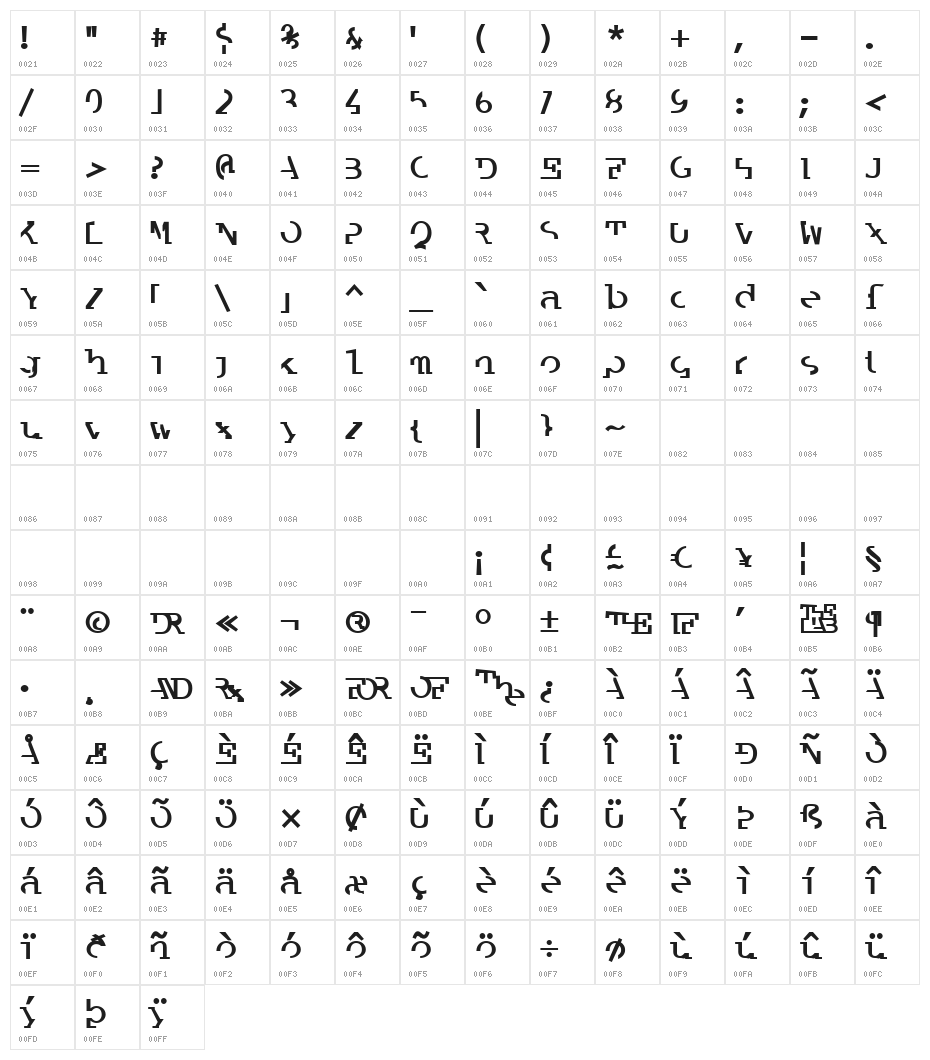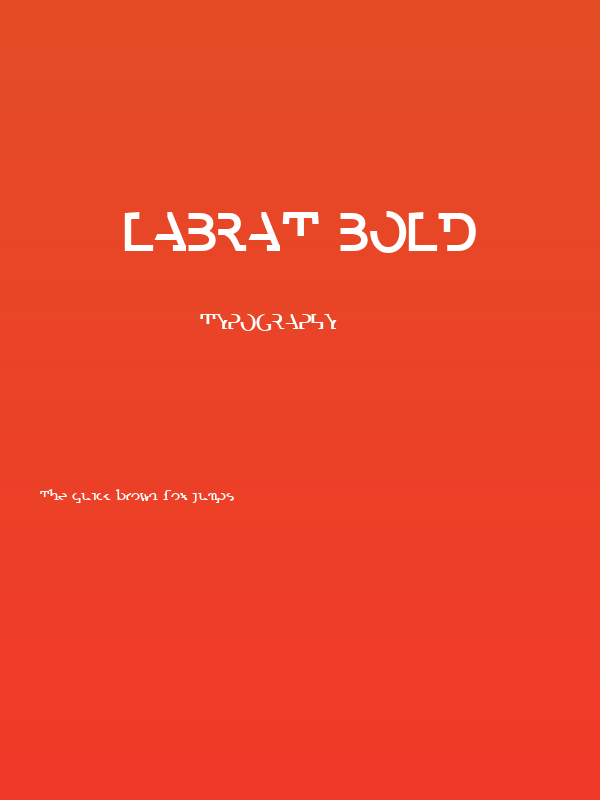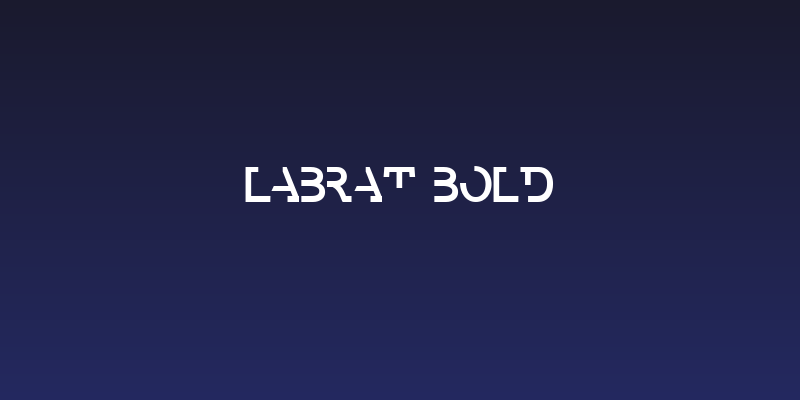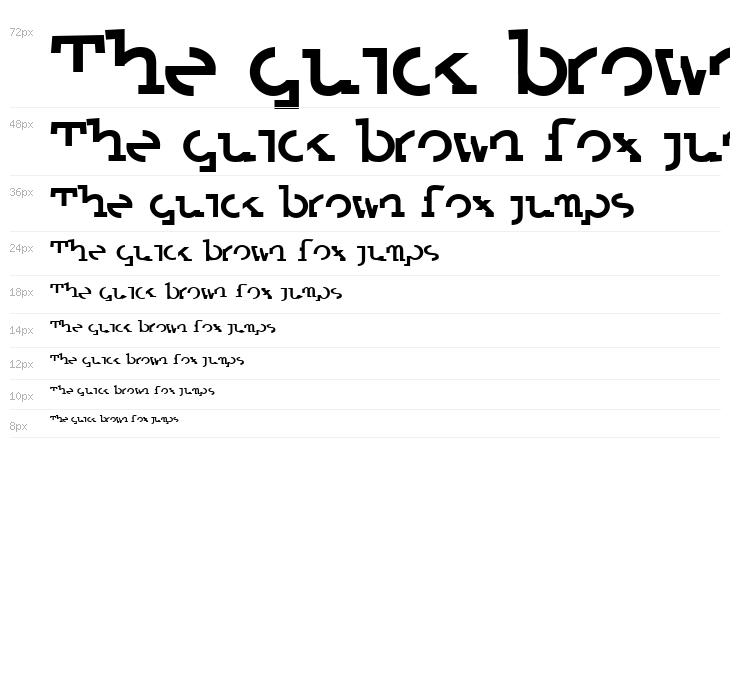
Labrat Bold Font
Labrat Bold Description
This font features a bold and distinctive style with a modern, geometric design. The characters are constructed with sharp angles and unique cutouts, giving them a futuristic and edgy appearance. The uppercase and lowercase letters maintain a consistent weight, contributing to a cohesive look. The numbers and special characters follow the same design principles, ensuring uniformity across all glyphs. The font's boldness makes it highly legible and impactful, suitable for attention-grabbing designs.
| Proposed Projects | Ideal for branding, posters, and digital media where a modern and bold statement is needed. |